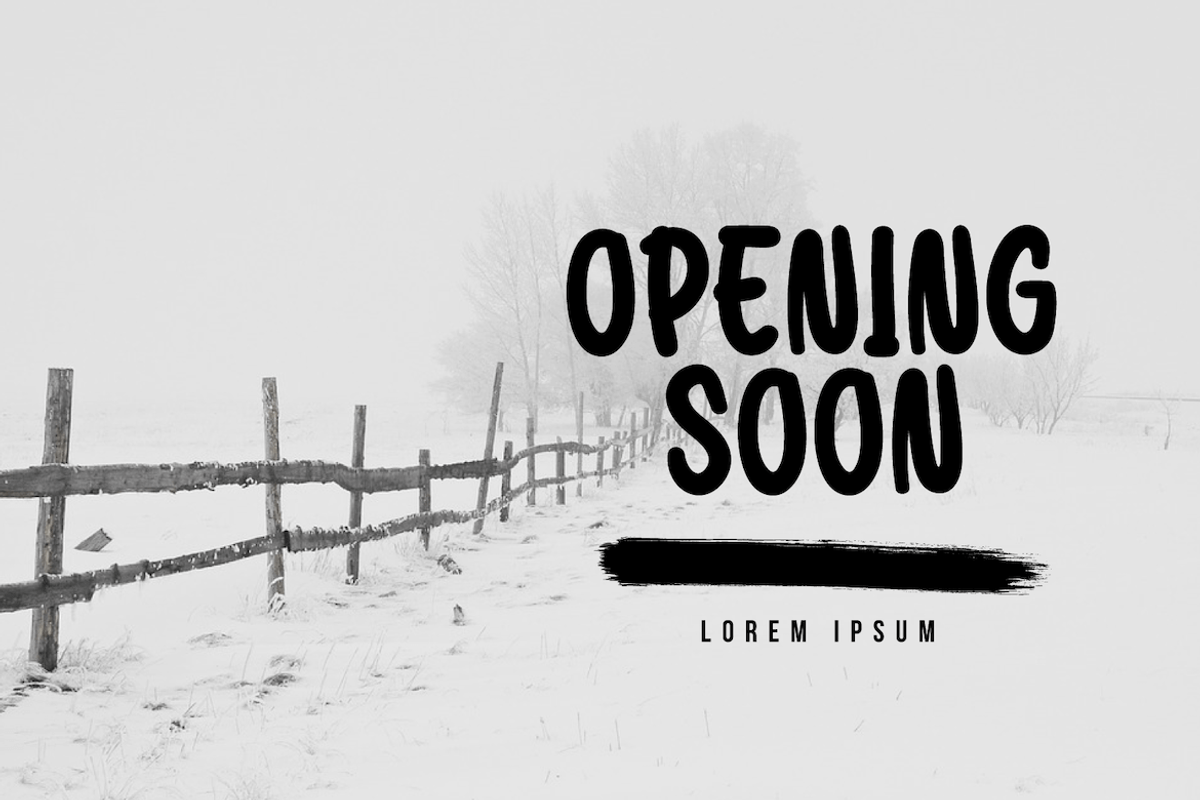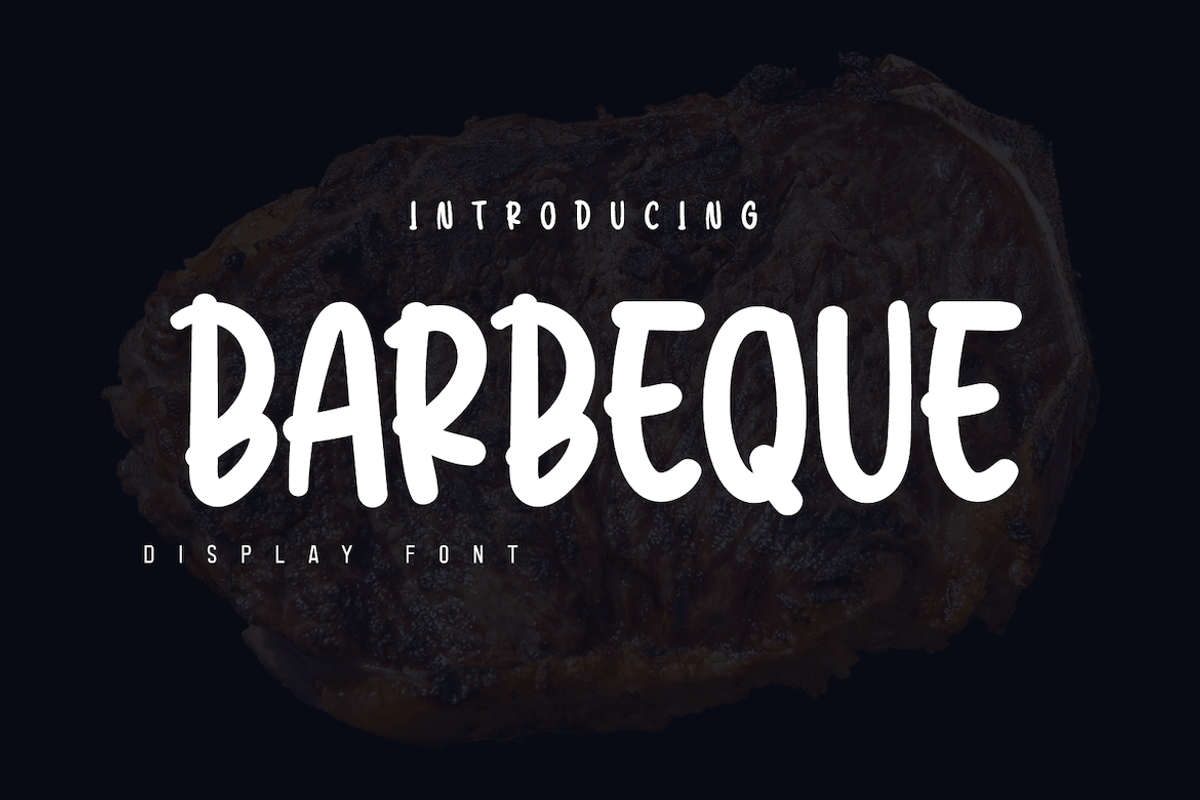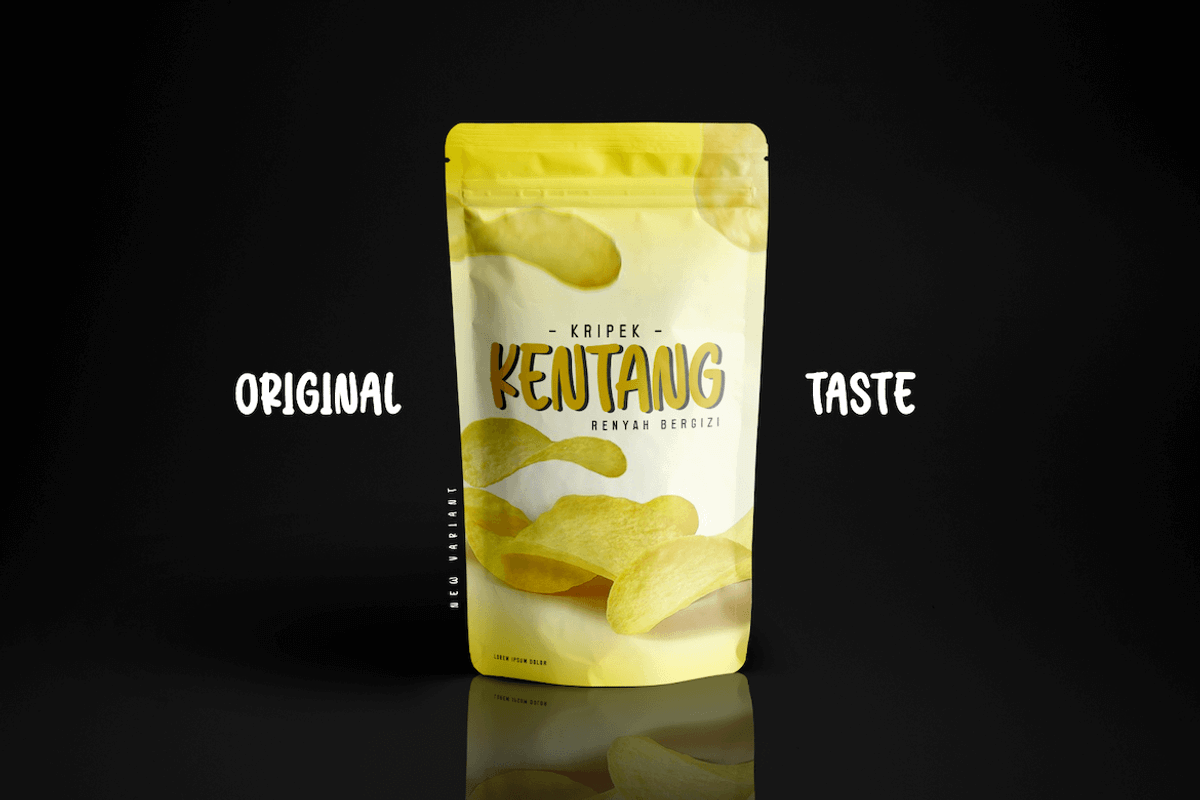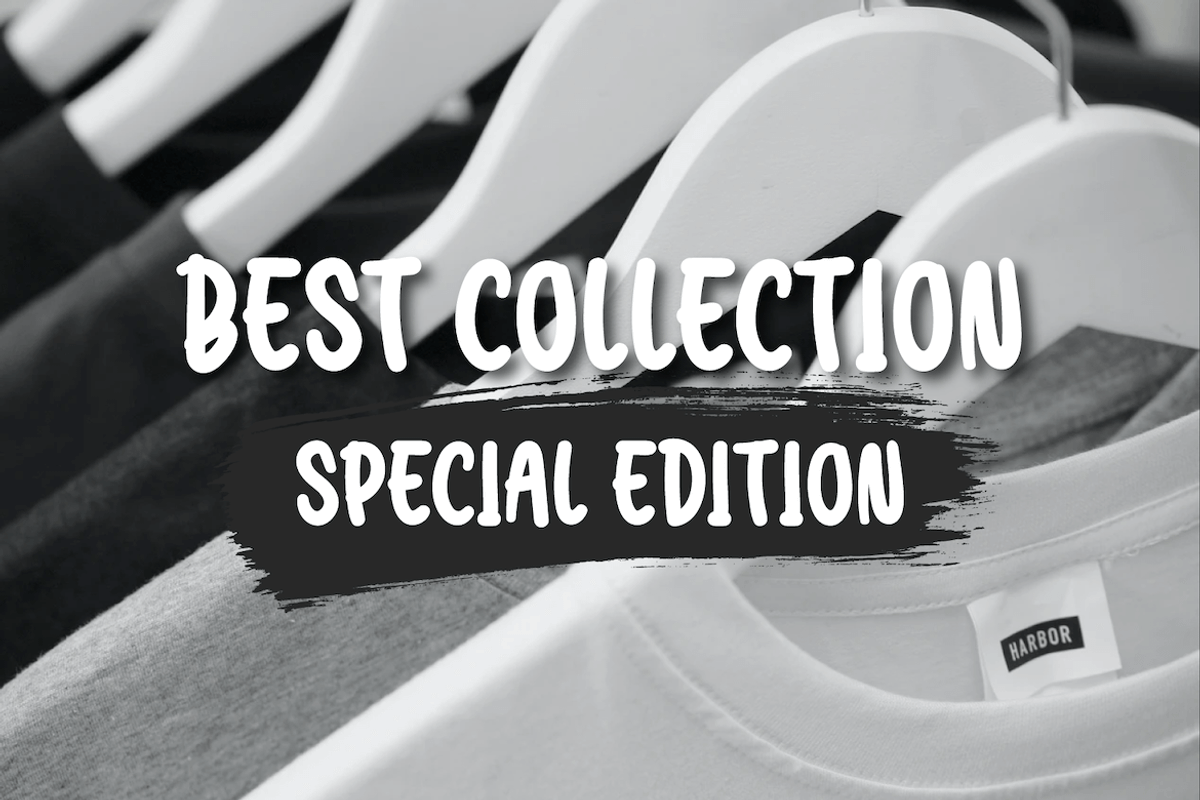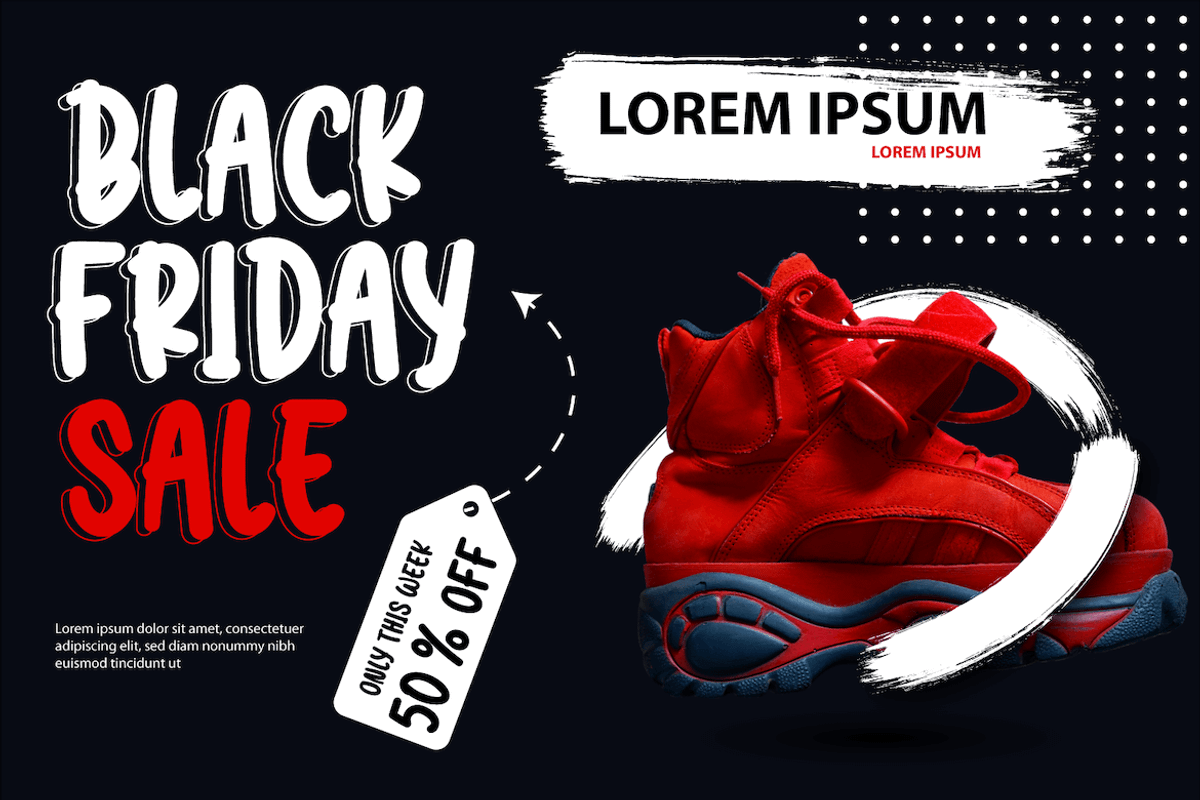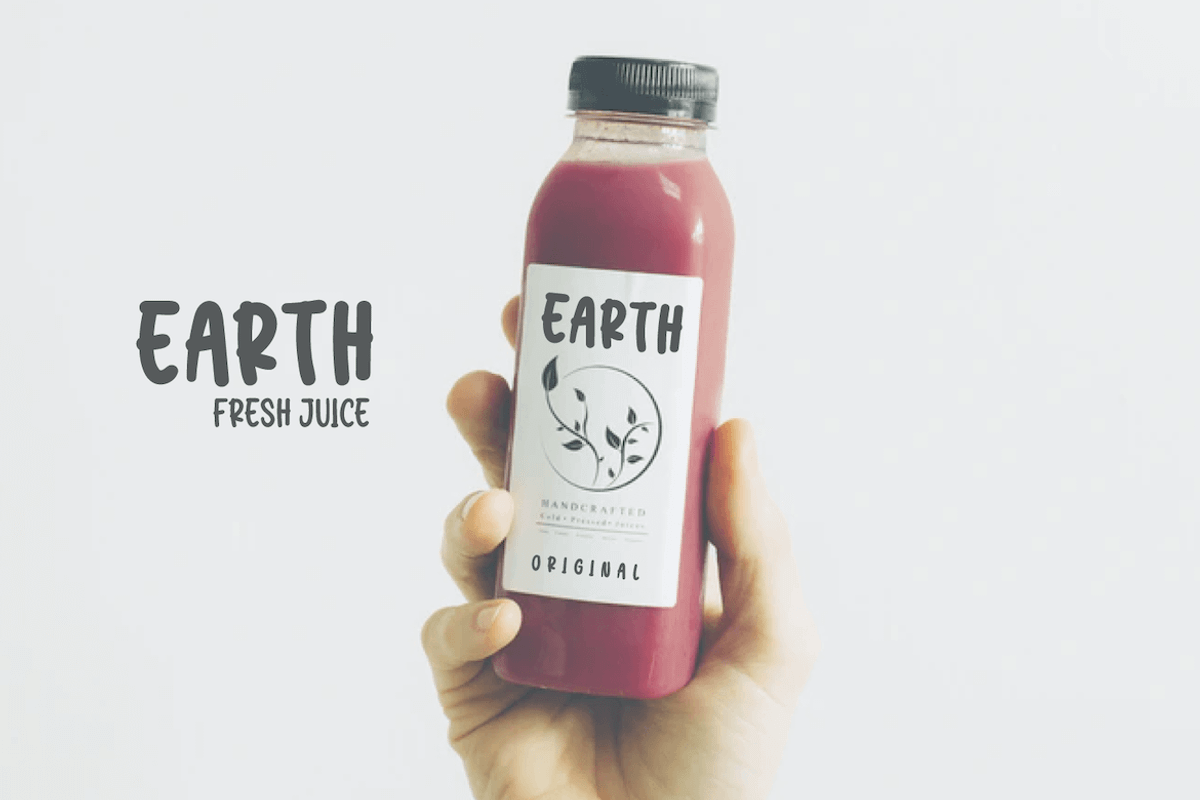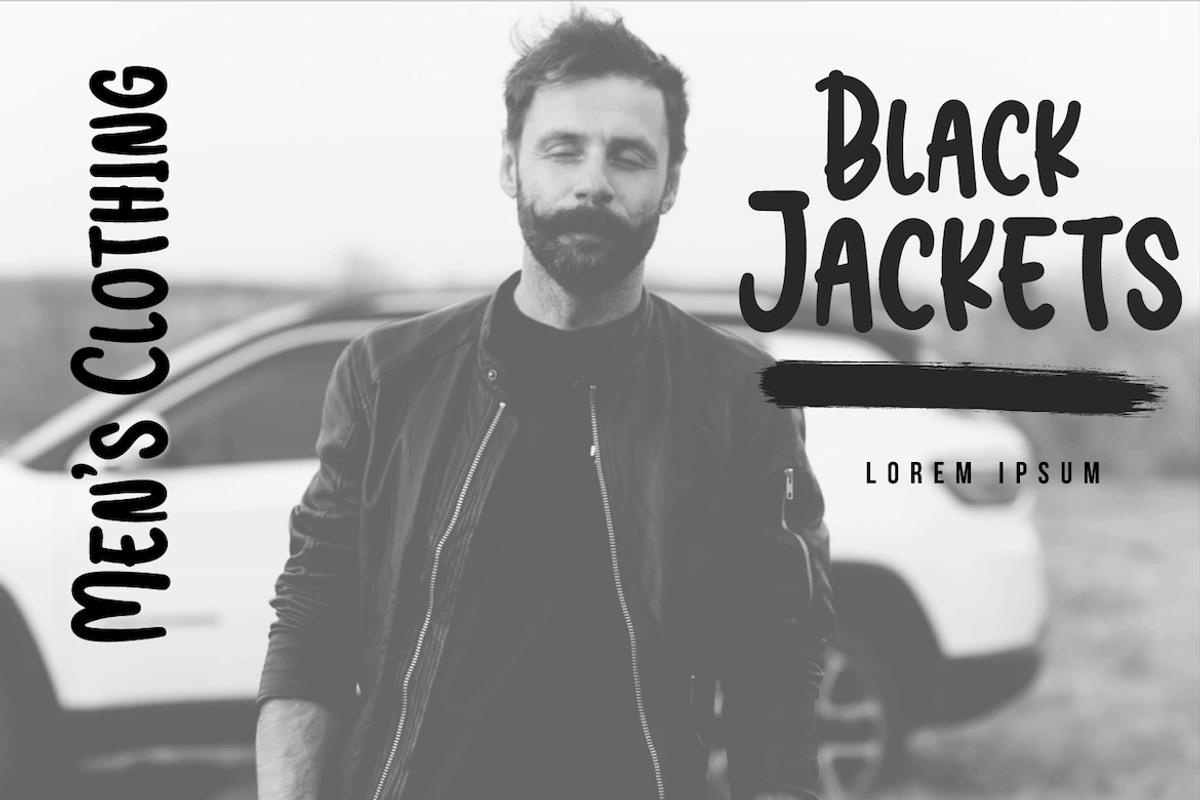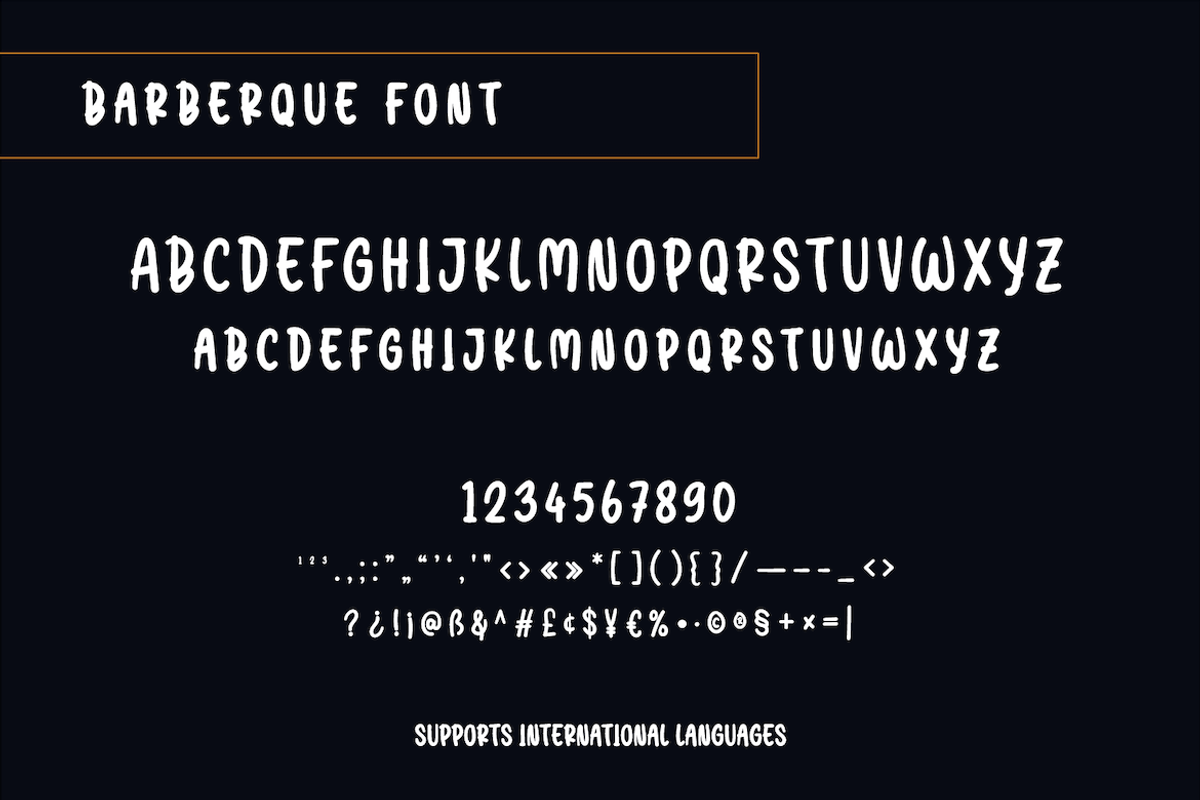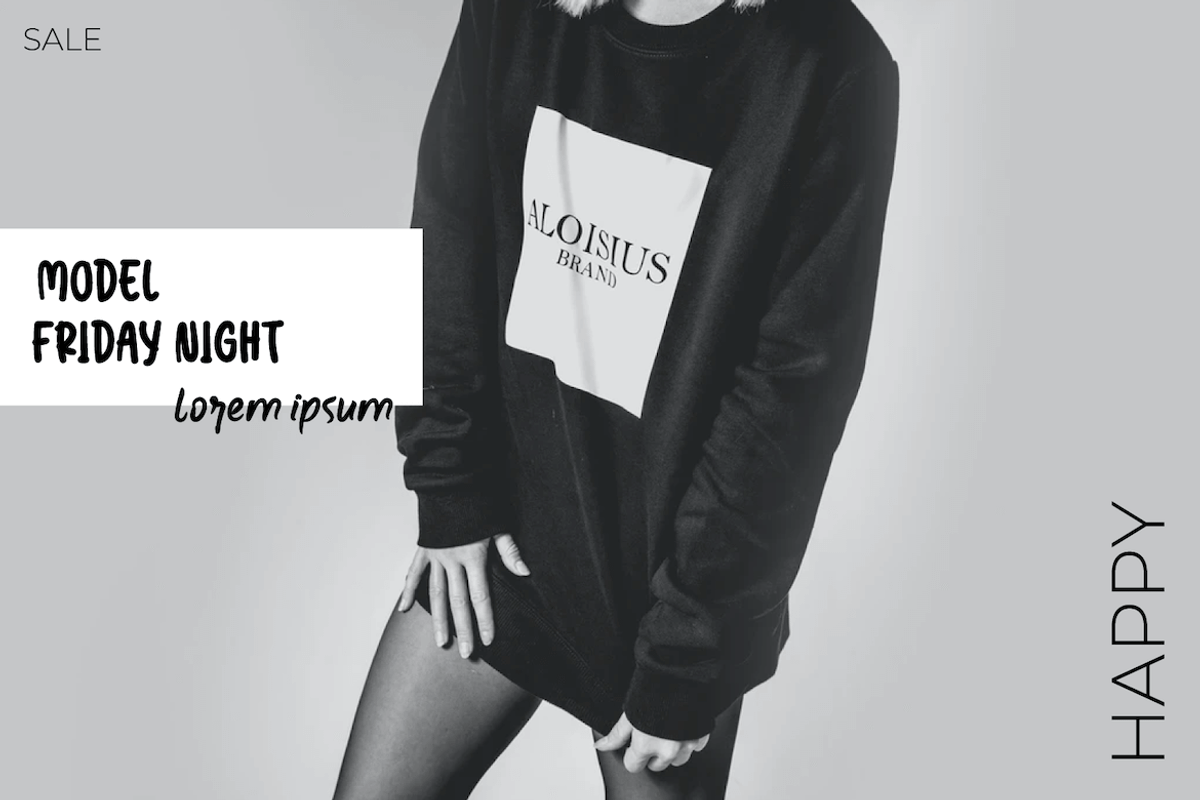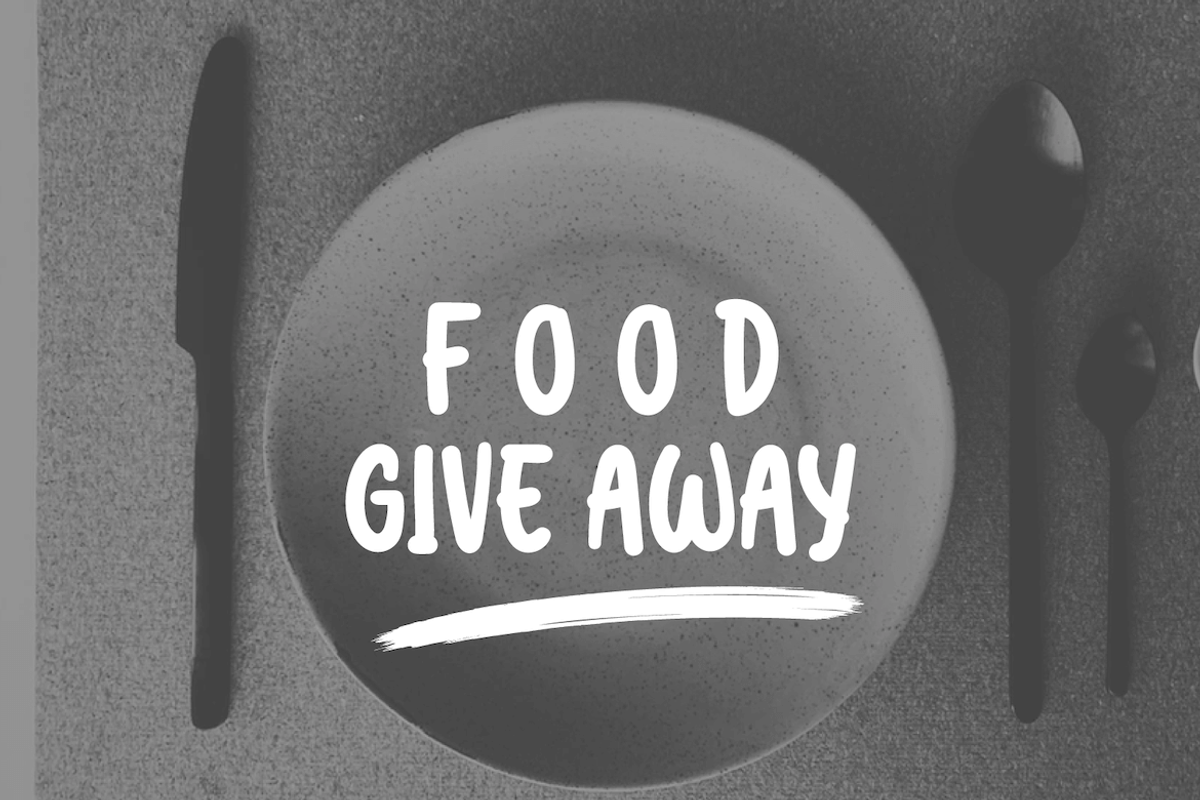
Barbeque
Introducing our newest font called Barbeque, this font is designed with an abstract and beautiful handwritten theme, so that when used it can create a relaxed yet memorable impression for the viewer.
Start using this font to create an ideal, balanced design in your every presentation.
In addition, this font is designed with a natural handwritten touch that is refined to create portions and compositions to suit your needs. So this font is perfect for crafts, children’s writing, adventure posters, food banner titles, wedding invitations, product packaging logos, quotes, social media page covers, furniture banner headlines, book covers, and much more.